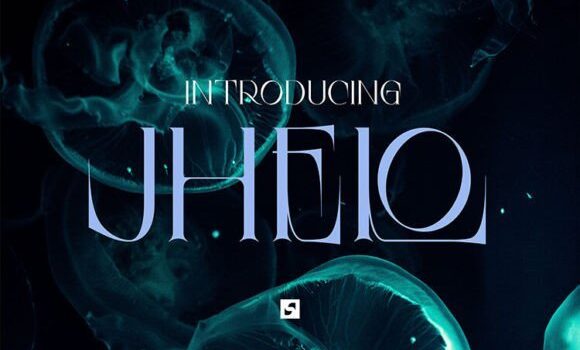
Jhelo Font – Free Download Introduction to Jhelo Font Jhelo is an elegant, gothic-inspired versatile serif with a range of ligature styles that will make any presentation or design stand out. 📸 Preview Gallery 6 images 📌 Product Name Jhelo